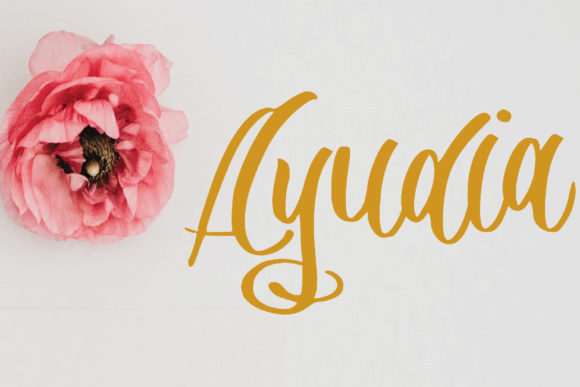
The Designer’s Delight: Ayudia Font
I’ll never forget the moment I stumbled upon the Ayudia font. I was working on a project for a client who wanted a elegant and timeless design, but I was struggling to find the right font to bring their vision to life. That’s when I discovered Ayudia, a flowing handwritten font that instantly captured my heart. In this article, I’ll share my experience with Ayudia, its features, and how to make the most of it in your designs.
First Impressions: A Love Letter to Ayudia
Ayudia is a beautifully crafted font that exudes elegance and sophistication. Its flowing lines and cursive style make it perfect for a variety of projects, from wedding invitations to branding and packaging. Here’s what I love about Ayudia:
- ✨ Elegant and refined design
- 🌈 Versatile and adaptable to different design styles
- 💫 Unique and distinctive character
The Not-So-Perfect: A Few Quirks
While Ayudia is an amazing font, it’s not without its limitations. Here are a few things to keep in mind:
- 🤔 May not be the best choice for very large or bold designs
- ⚠️ Some characters may not work well in all contexts (e.g., @ symbol)
The Story Behind Ayudia: A Designer Inspiration
Ayudia was designed by a talented typographer who wanted to create a font that would evoke the feeling of elegance and sophistication. The font’s unique character and flowing lines make it perfect for designs that require a touch of luxury and refinement.
| Font Name | Ayudia Font |
| Author | goodigital |
| What is Ayudia font? | Ayudia is a flowing handwritten font with an elegant and refined design. |
| What is Ayudia best used for? | Ayudia is best used for designs that require a touch of elegance and sophistication, such as wedding invitations, luxury branding, and packaging. |